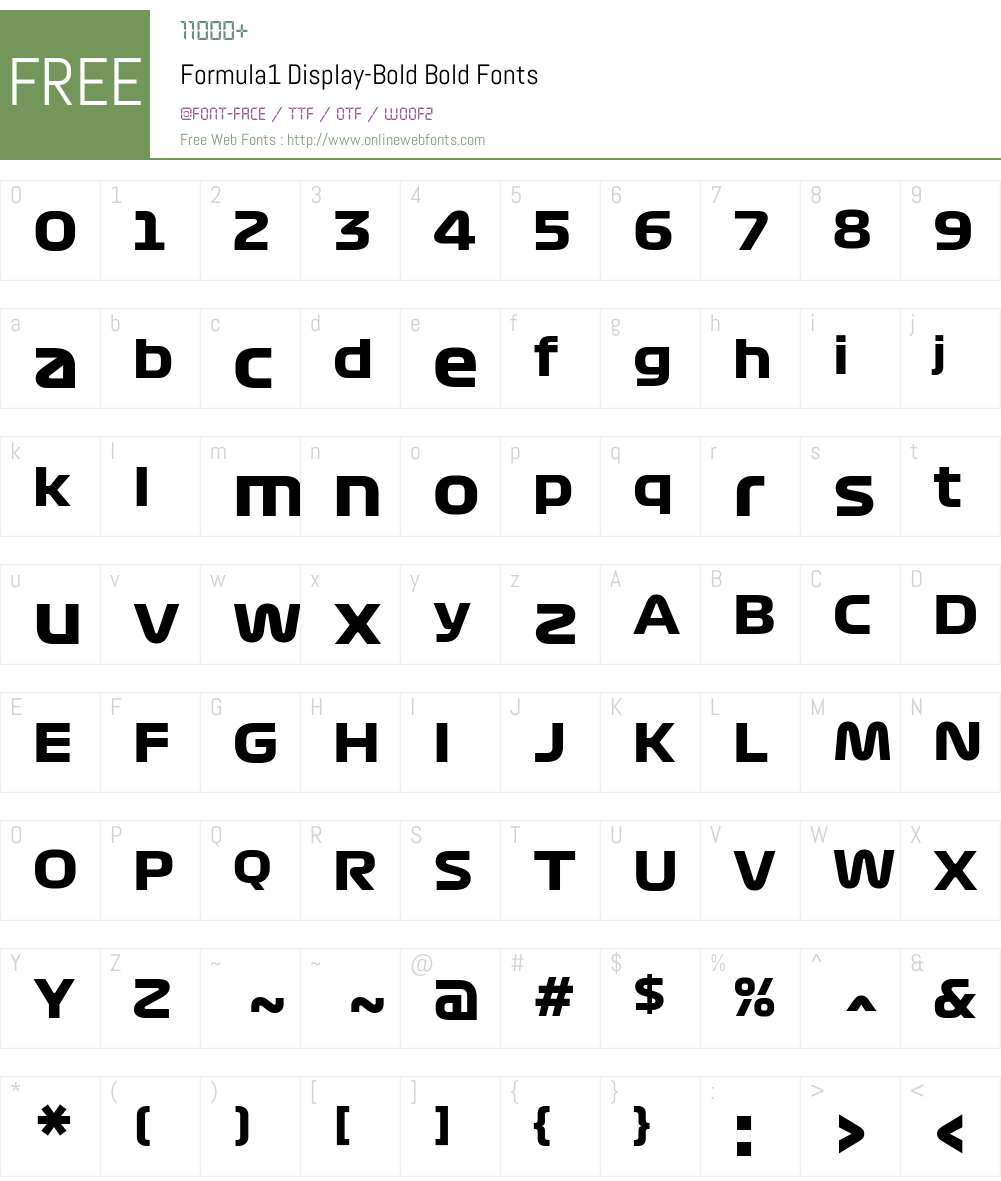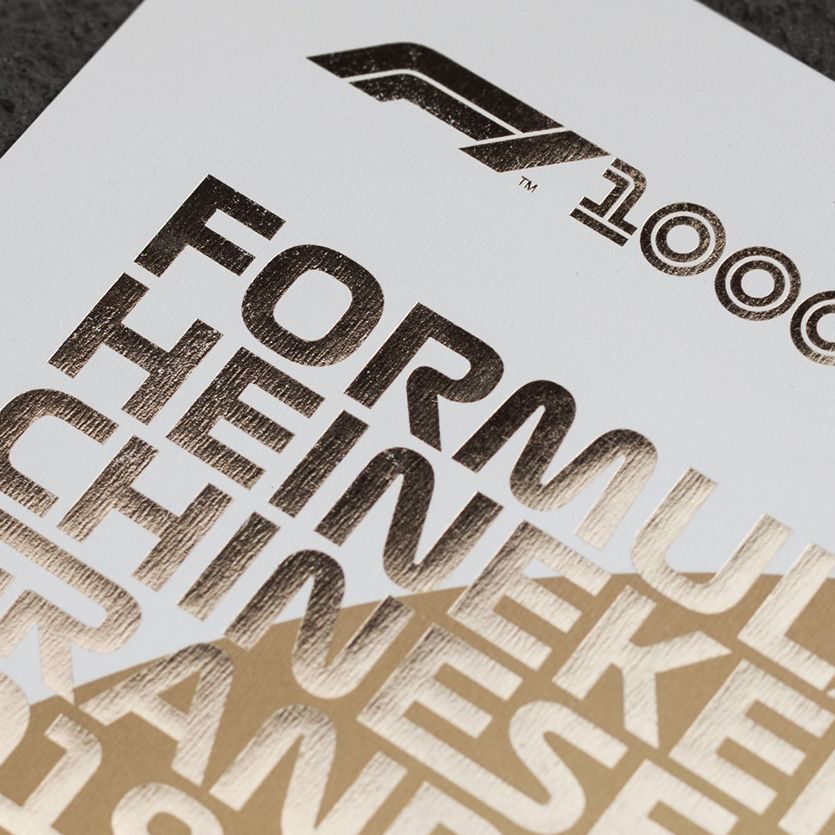
If youre an f1 fan and have been wondering how you can get these fonts on your computer this article is for you. Formula 1 by woodcutter. Being a freelance logo designer i was obviously super hyped to see the redesign of the new formula 1 logo redesign below and i was also really impressed by the 3 f1 fonts that were created for the new f1 brand identity.
Download donate to author. Download the formula 1 font by djalal. Its all gone a bit retro futuristic with the agency behind the reworked logo and font telling creative review that the work of the designers republic popularised among the likes of us within playstation race series wipeout was an influence on the new direction.